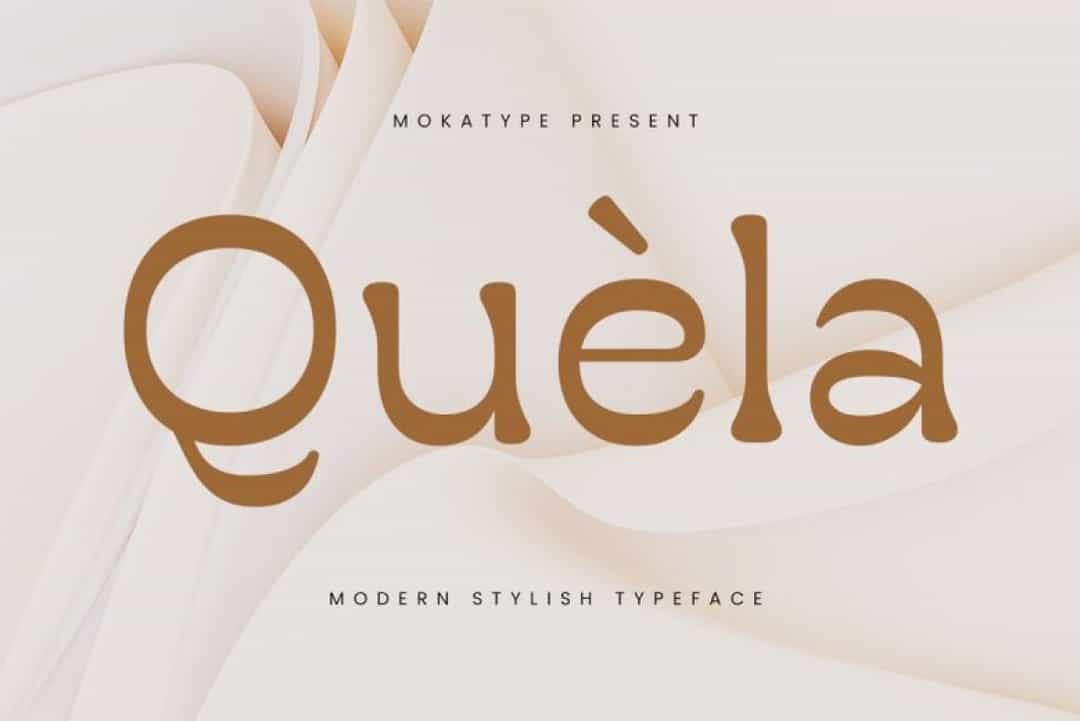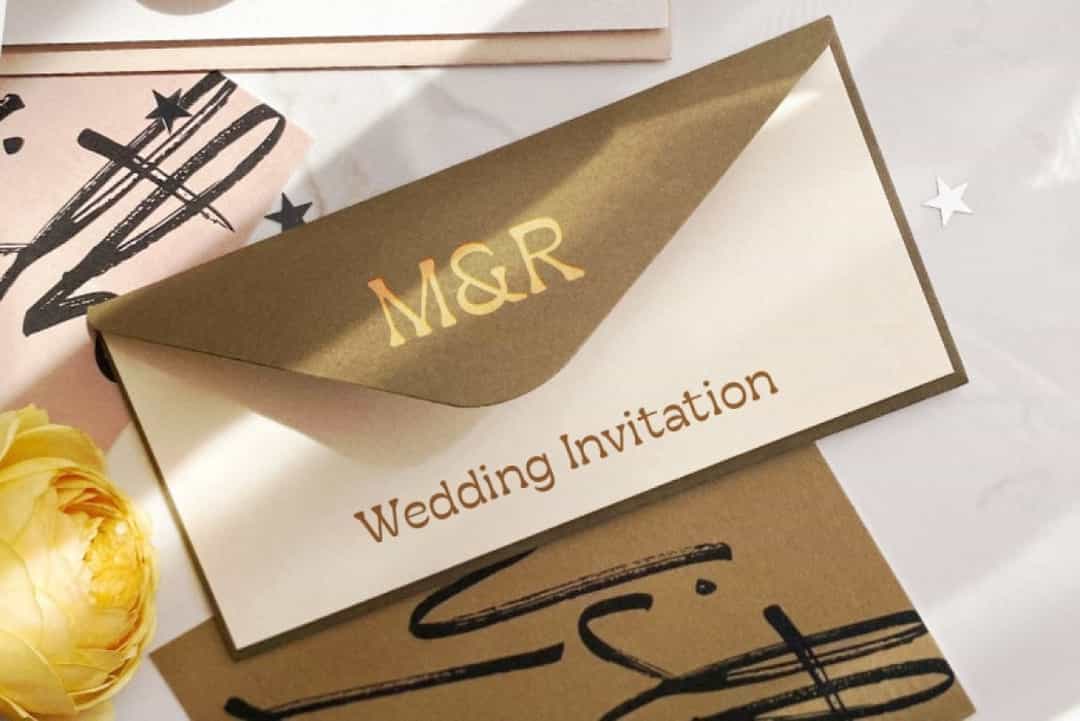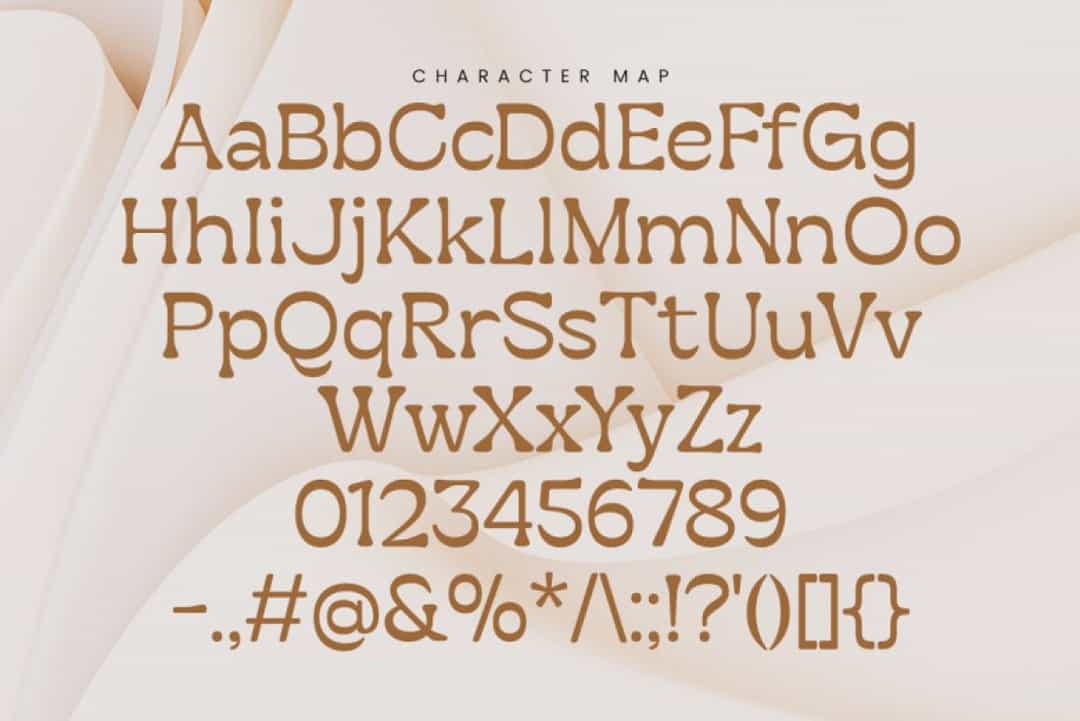
Quela is a retro-influenced, Reverse Serif font with subtle, rounded details and simple and flexible letterform. Ideal for display graphic design projects as well as long text such as quotes.